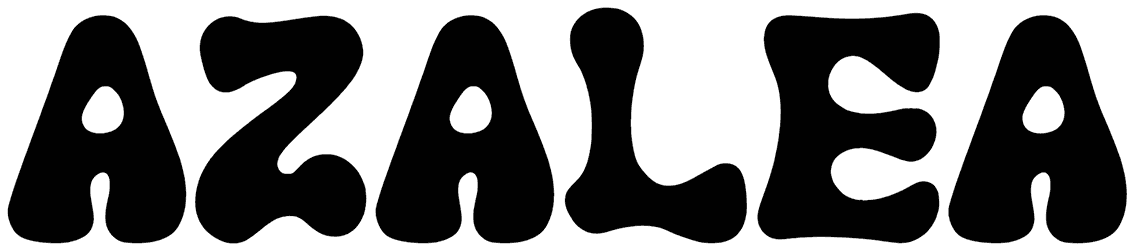
Azalea Font
Designed byHasana Font
Azalea is a shining masterpiece alongside dozens of fonts that we have collected in our archive for your convenience. This groovy font comes with wavy and curved characters, thus it can lead to a feeling of jauntiness, grunge, or momentum. You can easily utilize this fancy font in your illustrations, book covers, gift cards, or flyers with peace of mind.